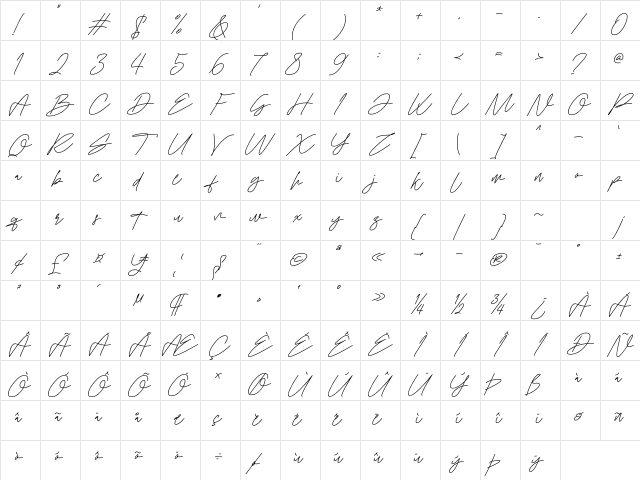
Cruliosta Regular Free Font
Cruliosta Regular
Designer: Jada Akbal
Design Context for Cruliosta
Cruliosta is a composed and adaptable typeface that performs quietly and consistently across a wide range of design contexts.